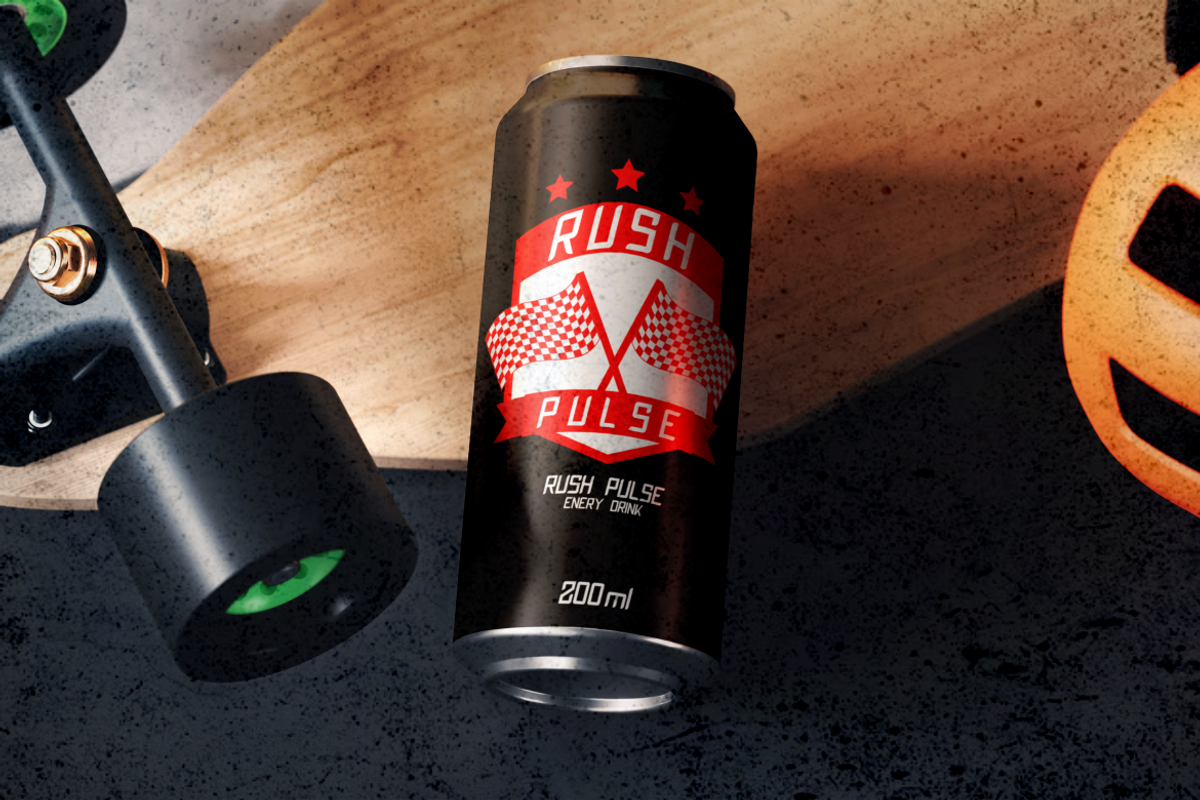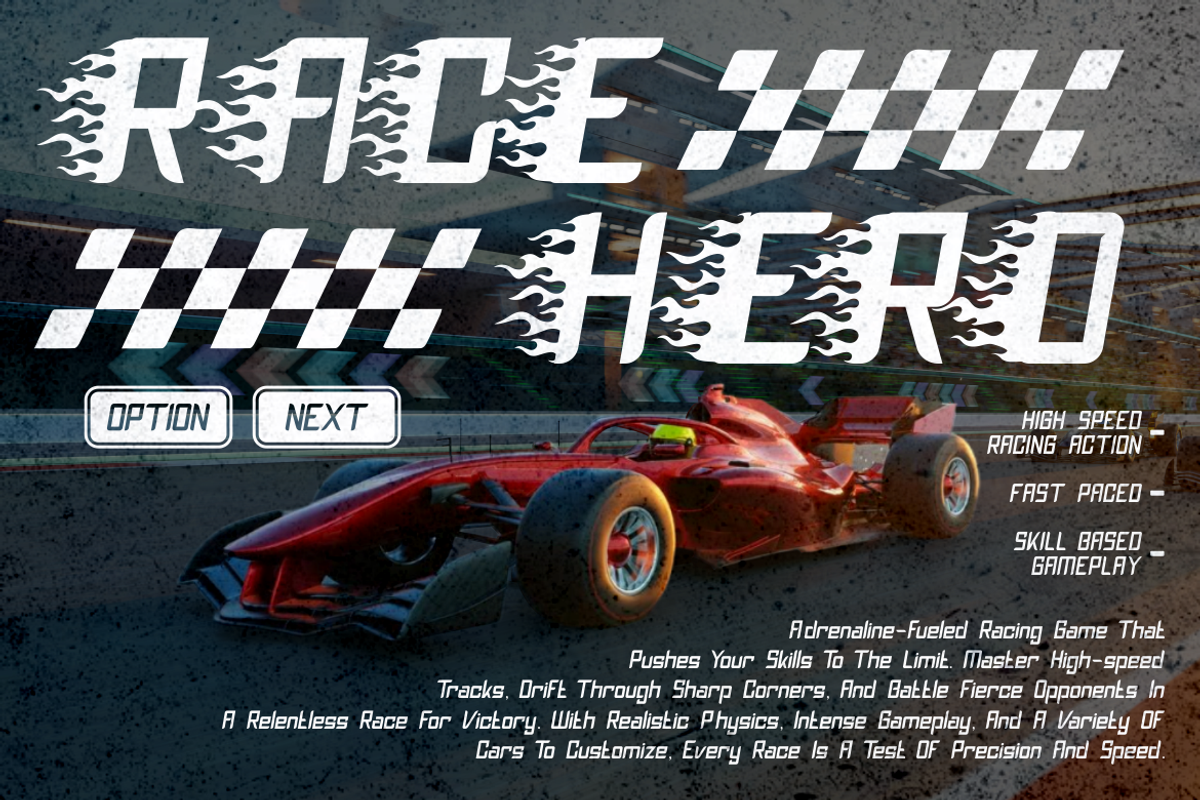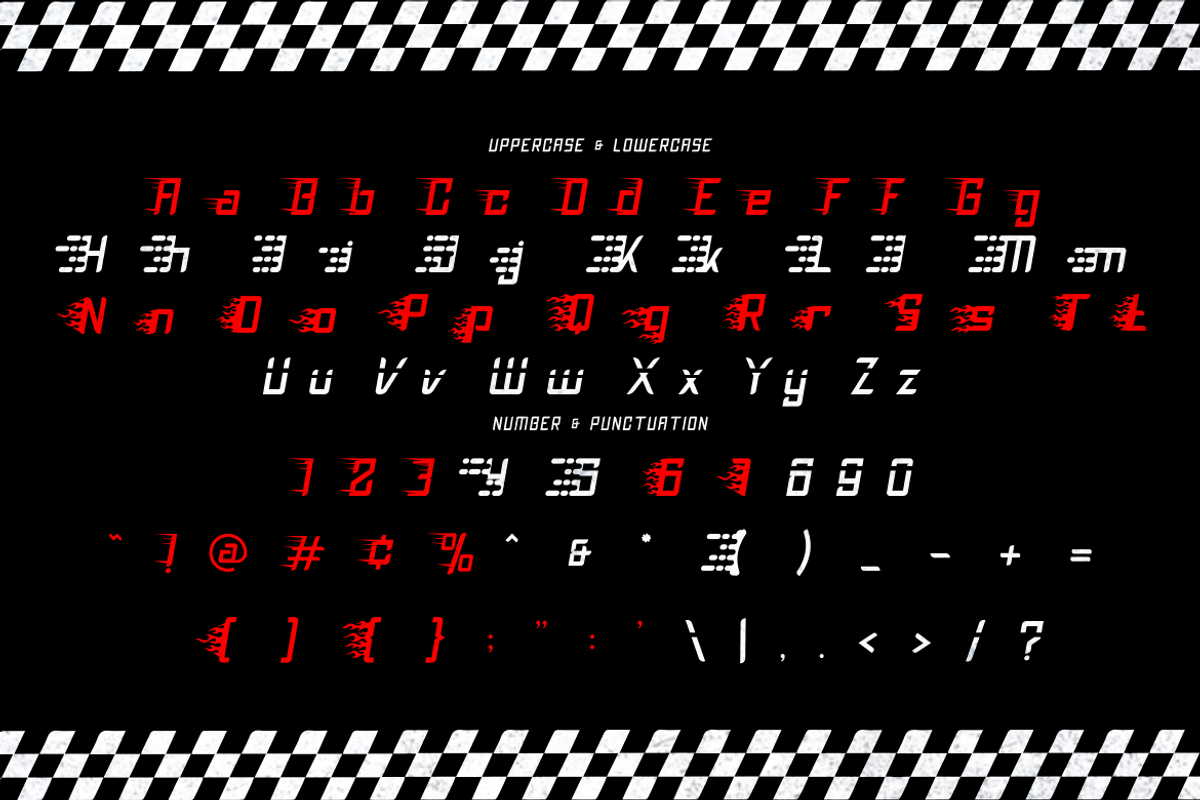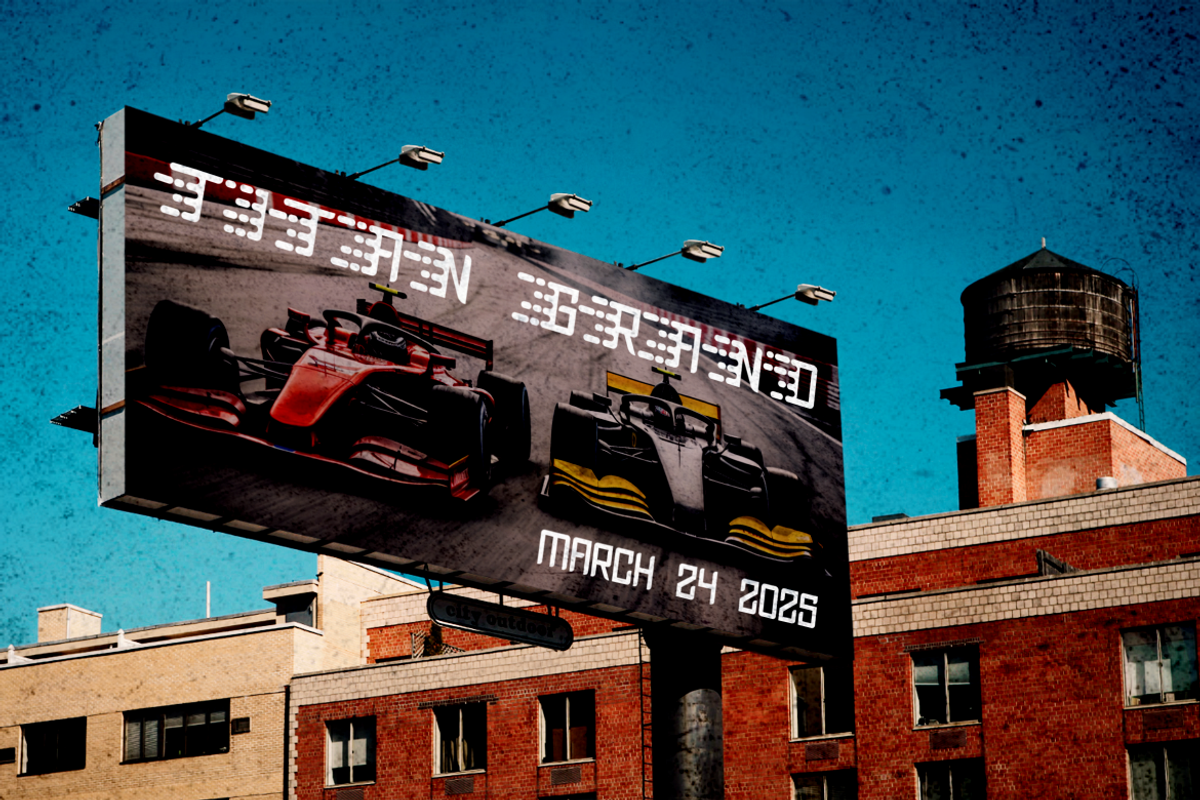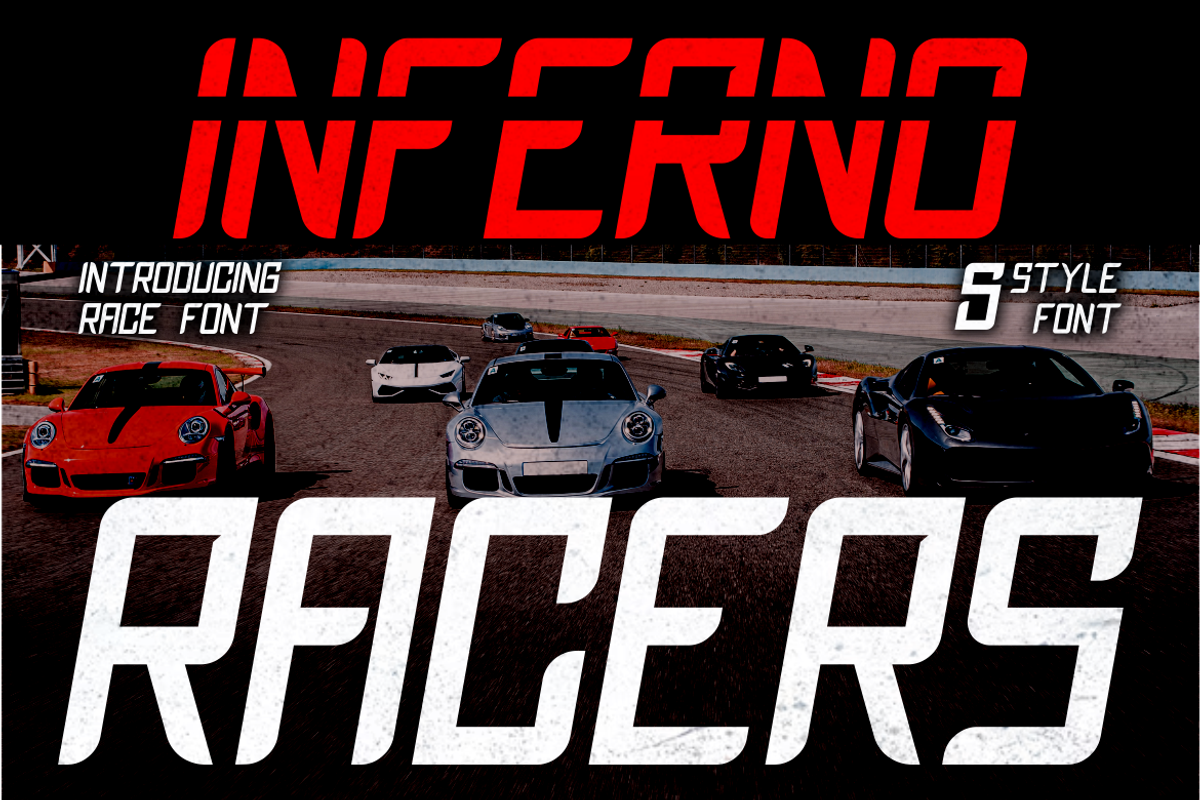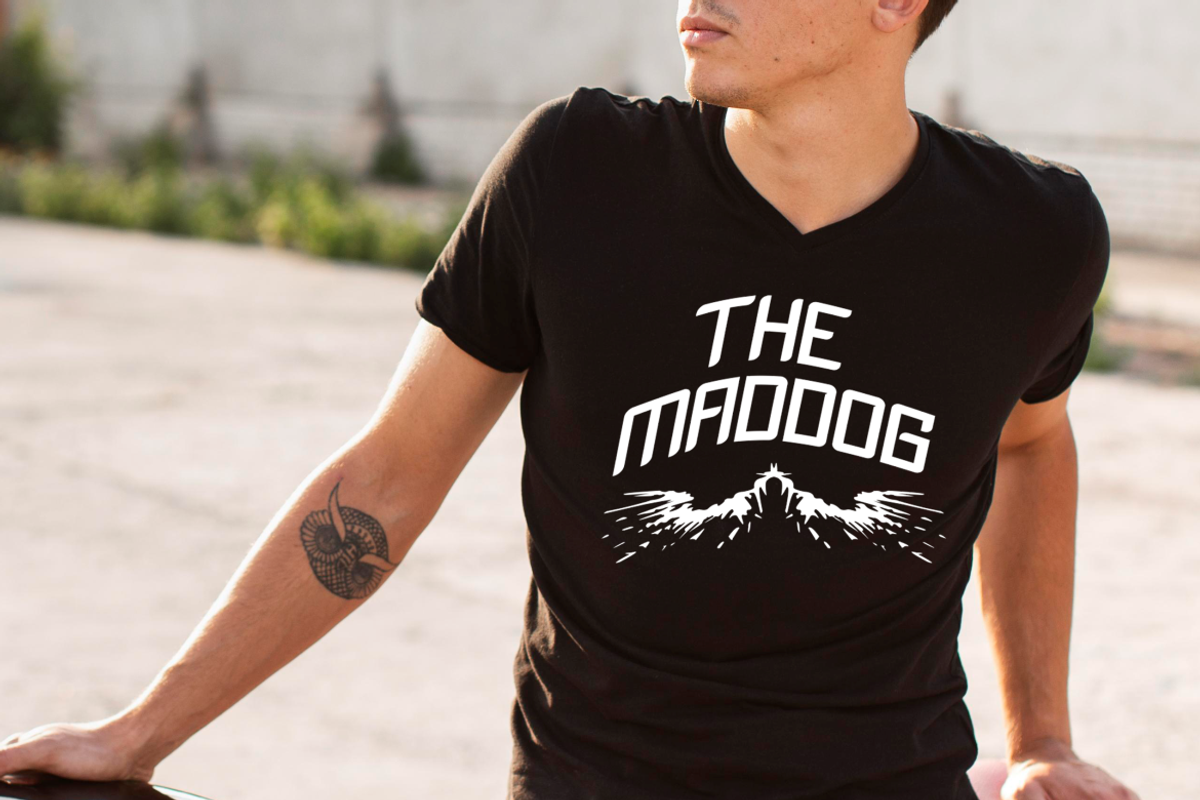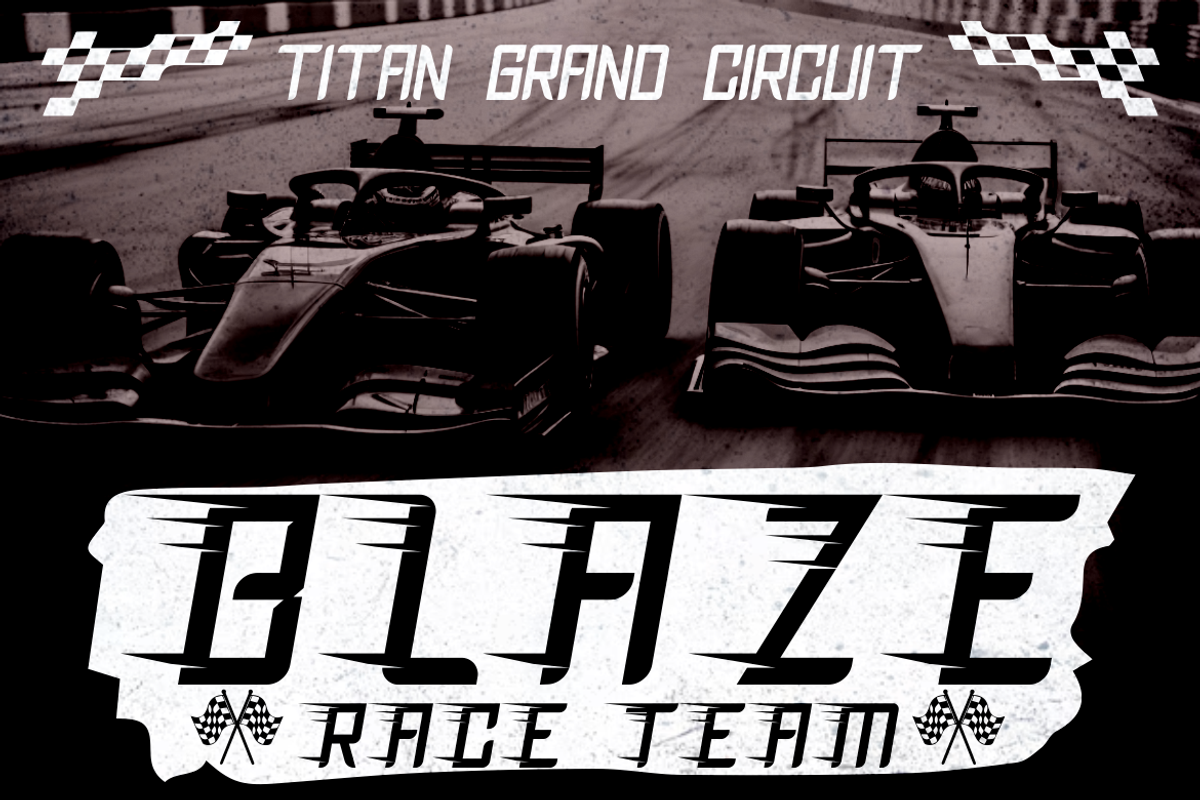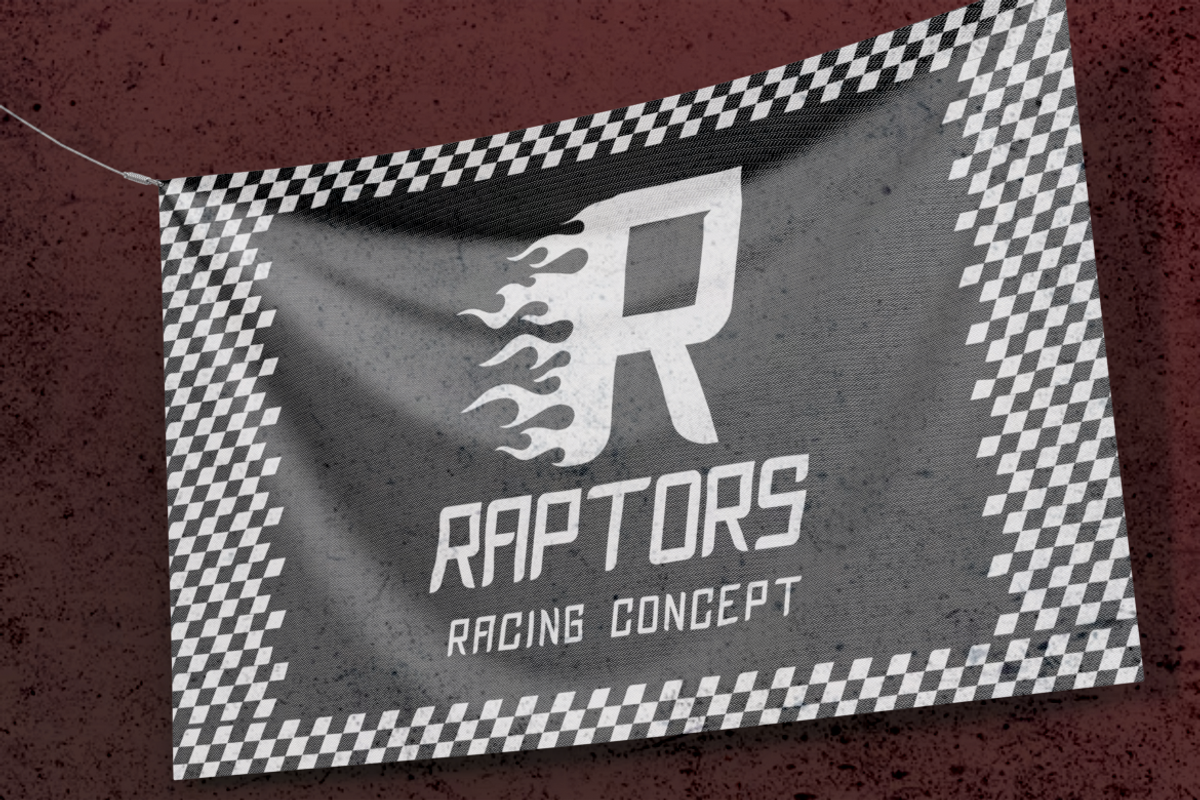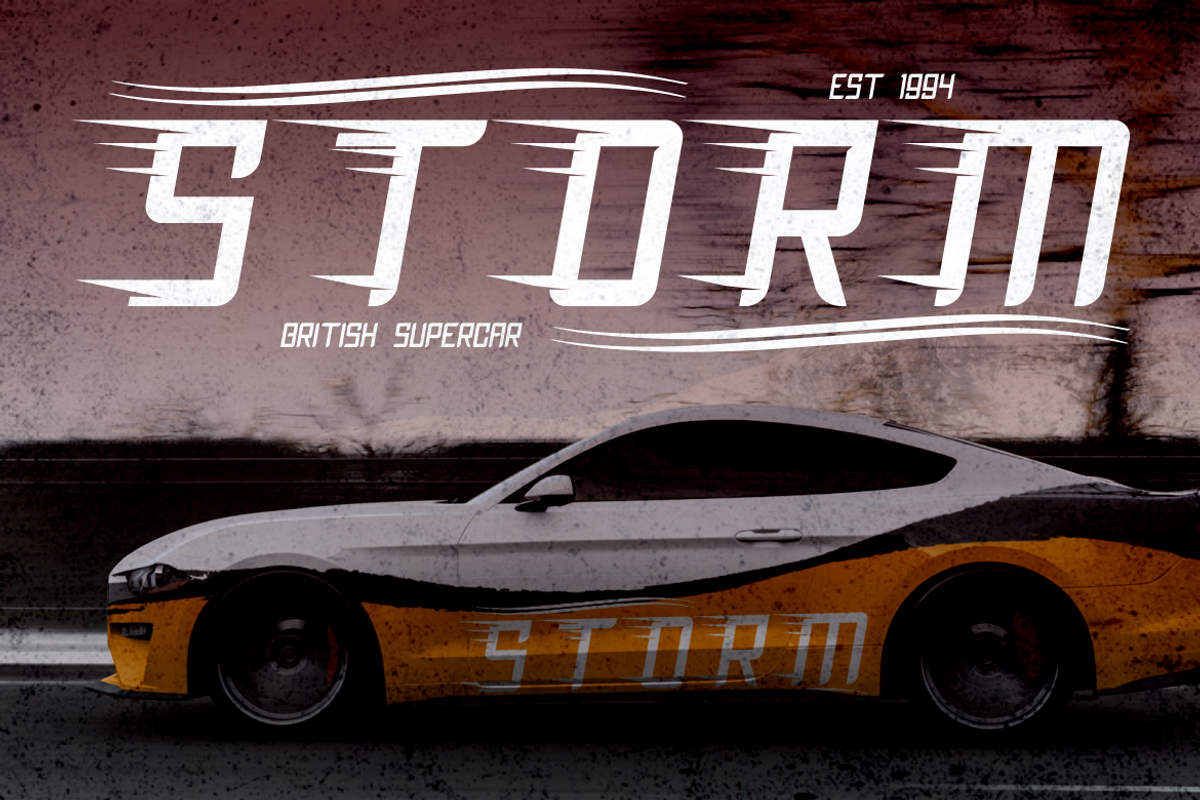
Inferno Racers - Race Font
Inferno Racers – Race Font is a high-octane typeface engineered for speed, energy, and modern visual impact. Designed with angular geometry and bold curvature, each letterform echoes the velocity and thrill of motorsports. This display font includes 5 versatile styles: Regular, Speedline (Type 1), Digital Dots (Type 2), Flame (Type 3), and Slant Extended (Type 4), allowing creative flexibility for various race-themed and high-impact projects. From flaming glyphs to digital scoreboard aesthetics, Inferno Racers embodies the language of power, precision, and high-speed motion. It works seamlessly on both dark and light backgrounds, making it perfect for esports branding, dynamic logos, movie titles, or futuristic racing banners.
Whether you're designing racing game UIs, energy drink cans, billboard advertisements, or F1-inspired event posters, Inferno Racers brings unmatched personality. The font layout is built for horizontal expansion, ideal for track banners and widescreen covers. From aggressive slants to burn-like flames and digital stencil accents, this font delivers a visual punch. It’s not just fast—it feels fast. Craft your next high-adrenaline project with a font that drives excitement.